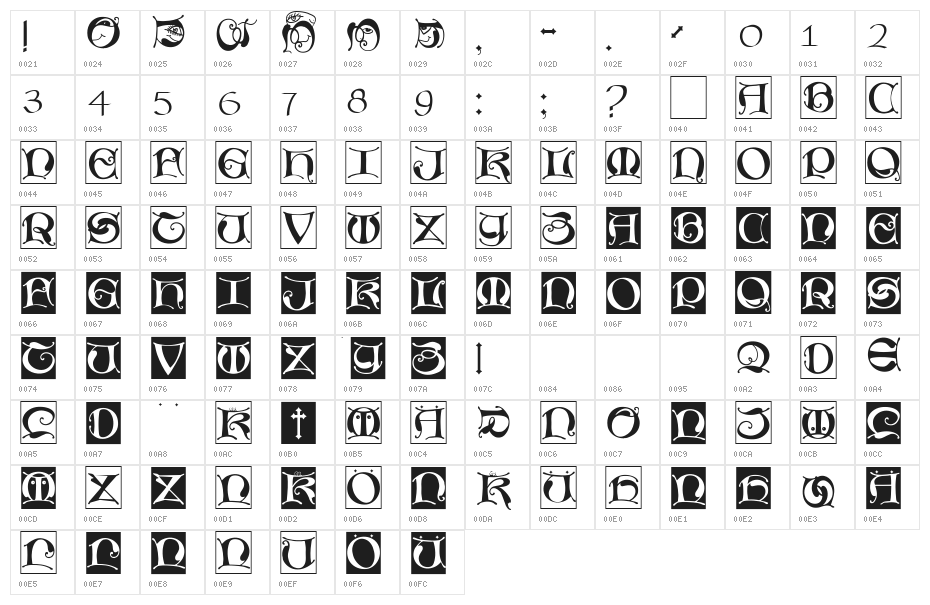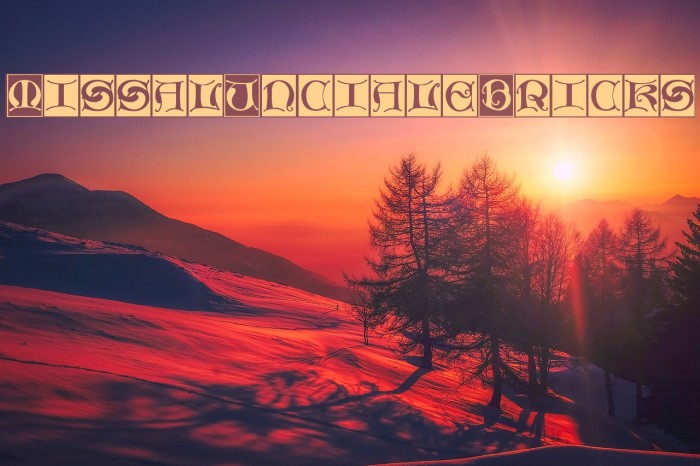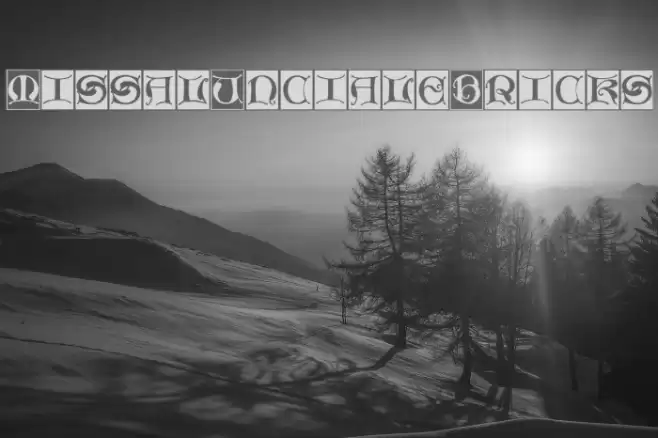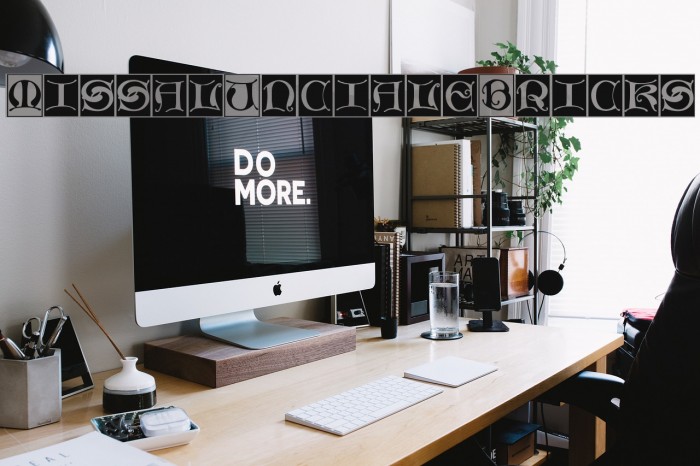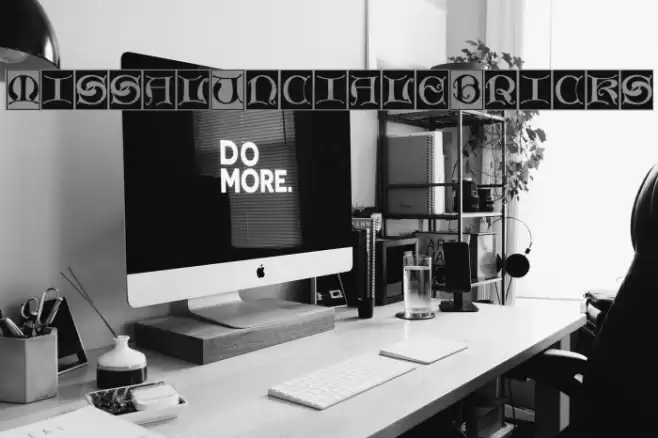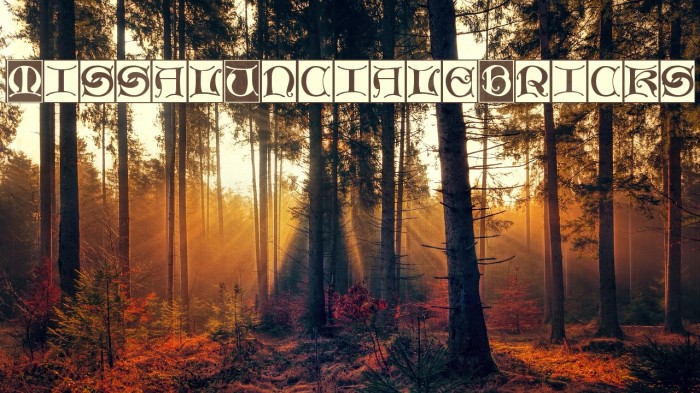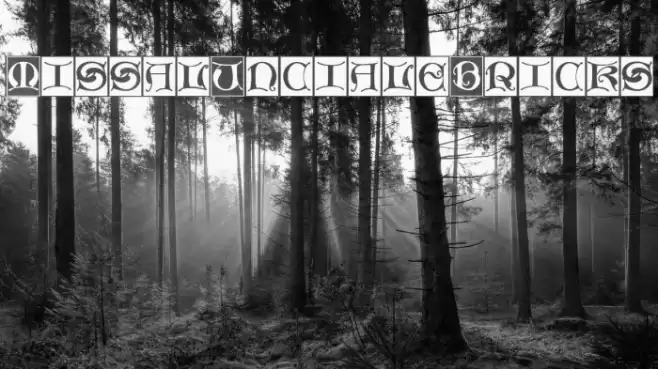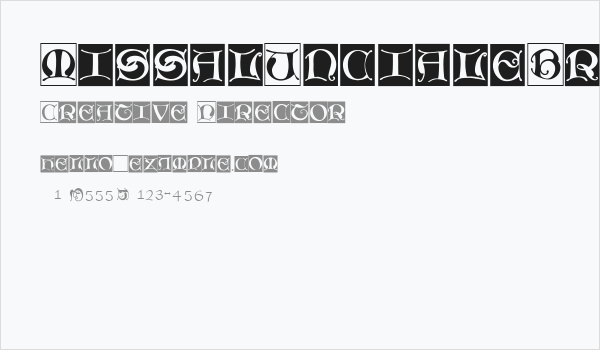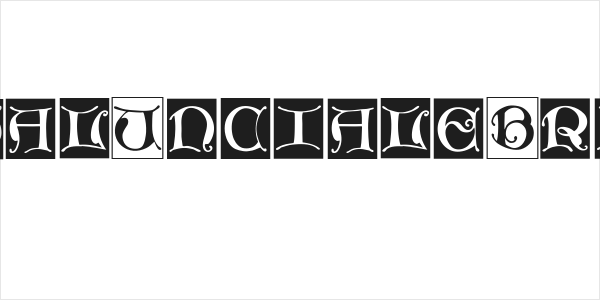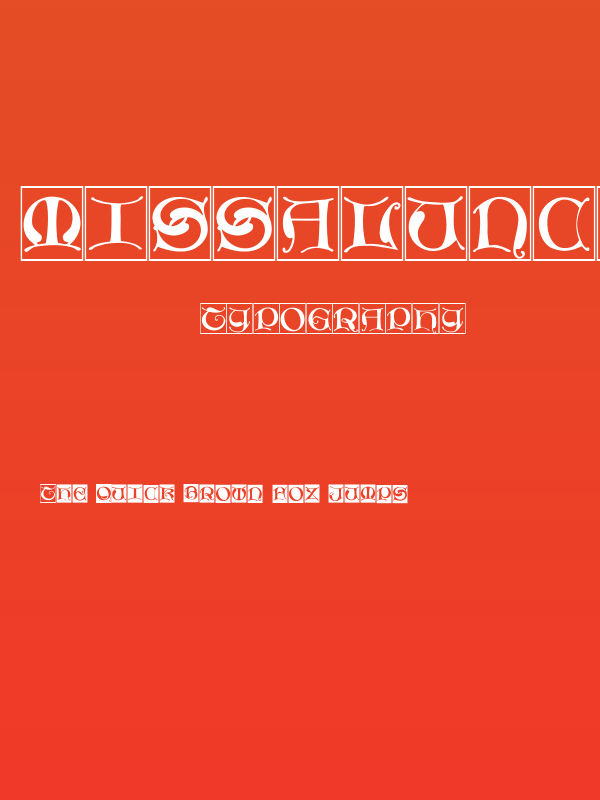
MissalUncialeBricks Font
MissalUncialeBricks Description
This font features a highly decorative and ornate style, reminiscent of medieval script with intricate detailing. Each character is enclosed in a square, adding a structured and uniform appearance. The uppercase letters are bold and embellished with flourishes, giving them a regal and historical feel. The lowercase letters maintain the decorative theme with unique curves and swirls. Numbers are more straightforward but still carry a slight decorative touch. Special characters are creatively designed, adding to the overall artistic aesthetic. This font is ideal for projects that require a historical or fantasy theme, offering a unique and eye-catching design.
| Use Case | Headlines, Logos, Decorative text |
| Proposed Projects | Ideal for fantasy book covers, historical event posters, themed invitations, and decorative signage. |